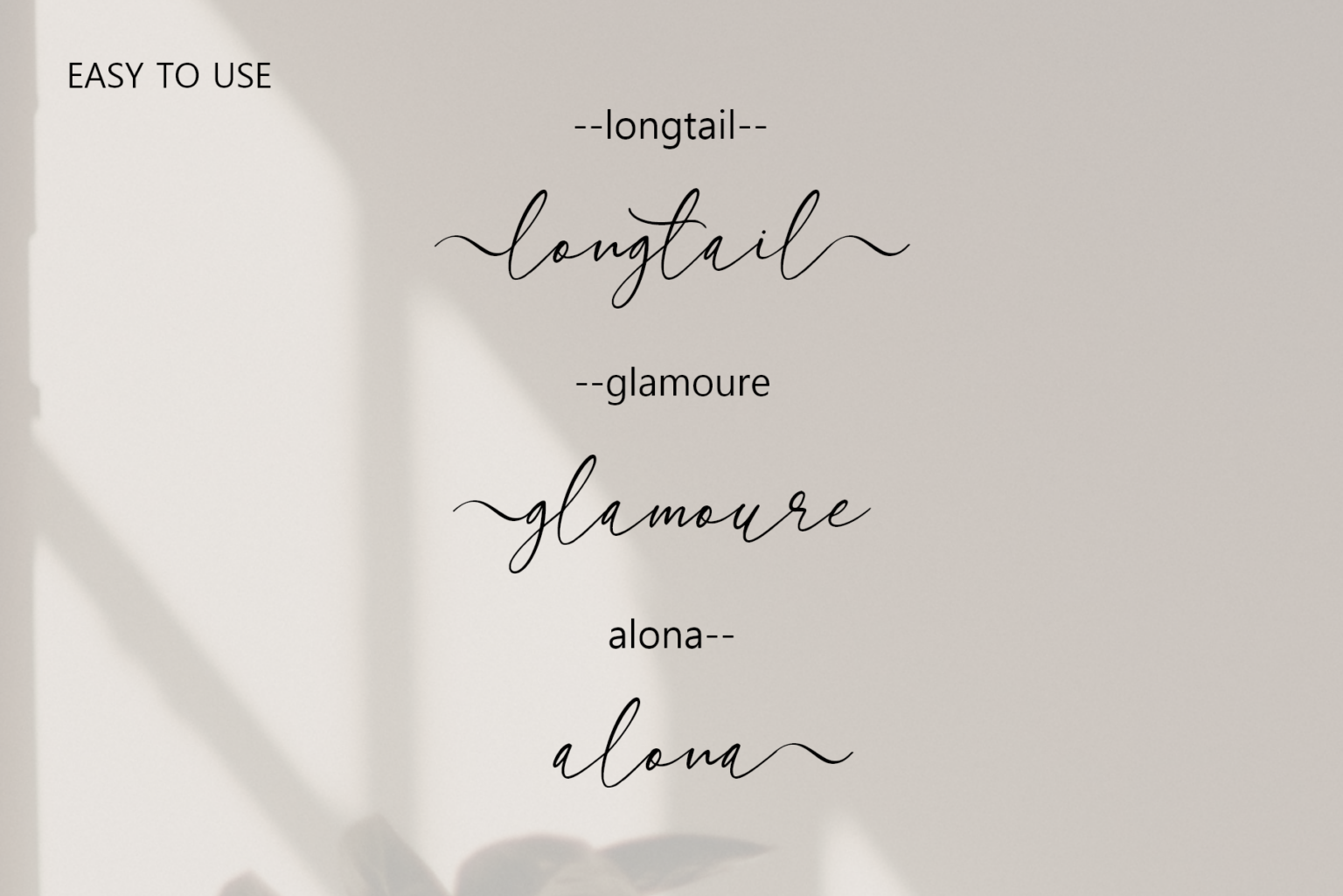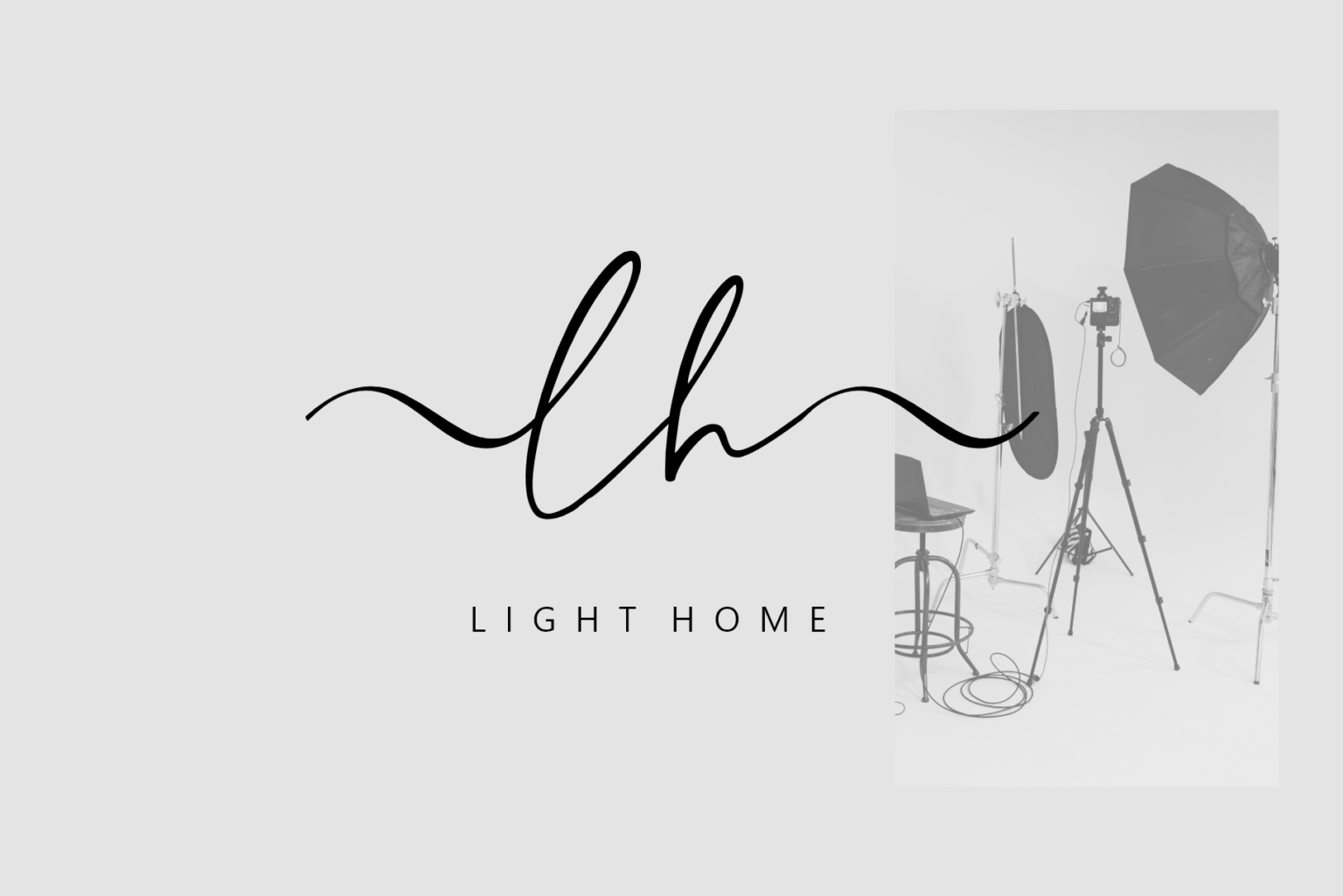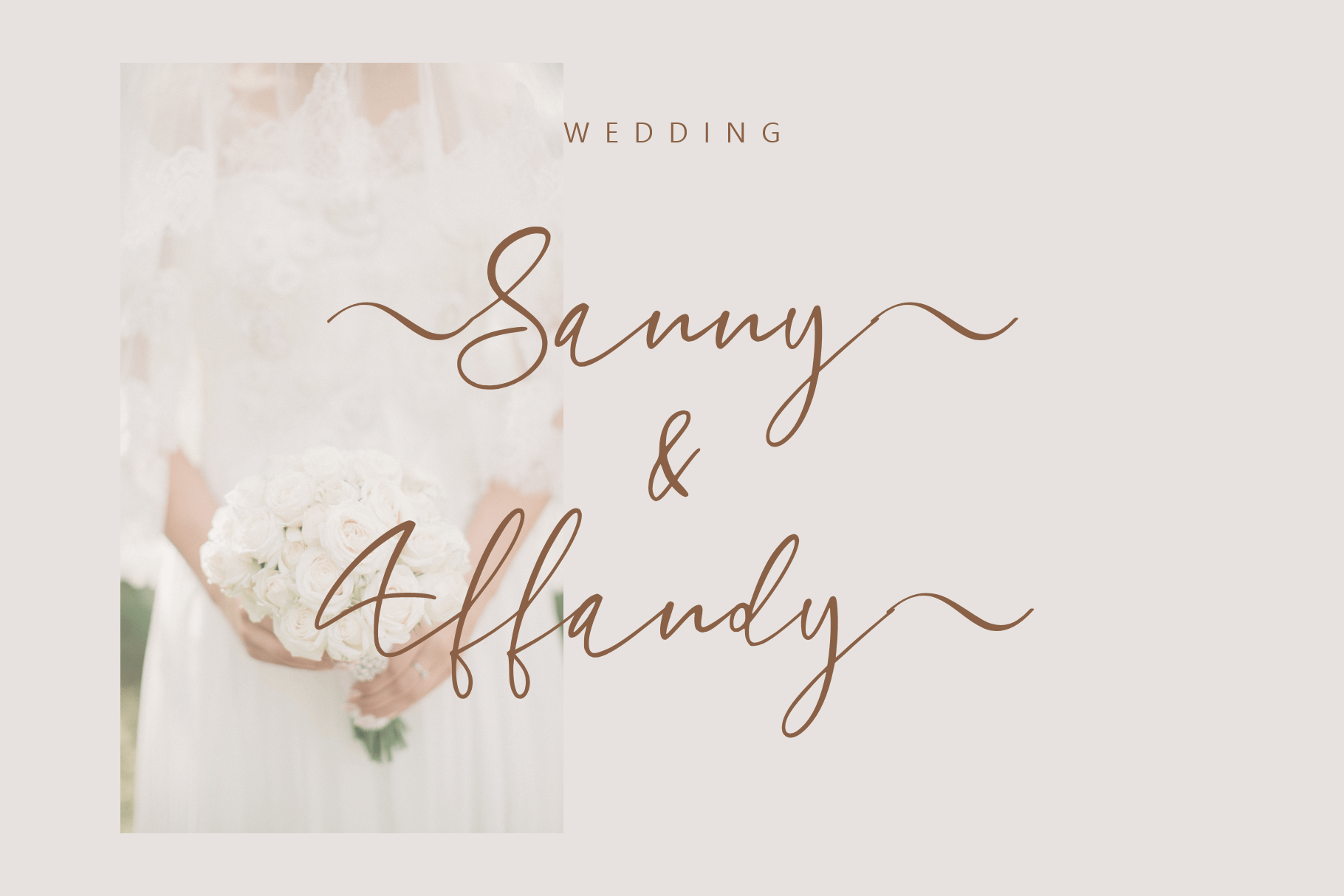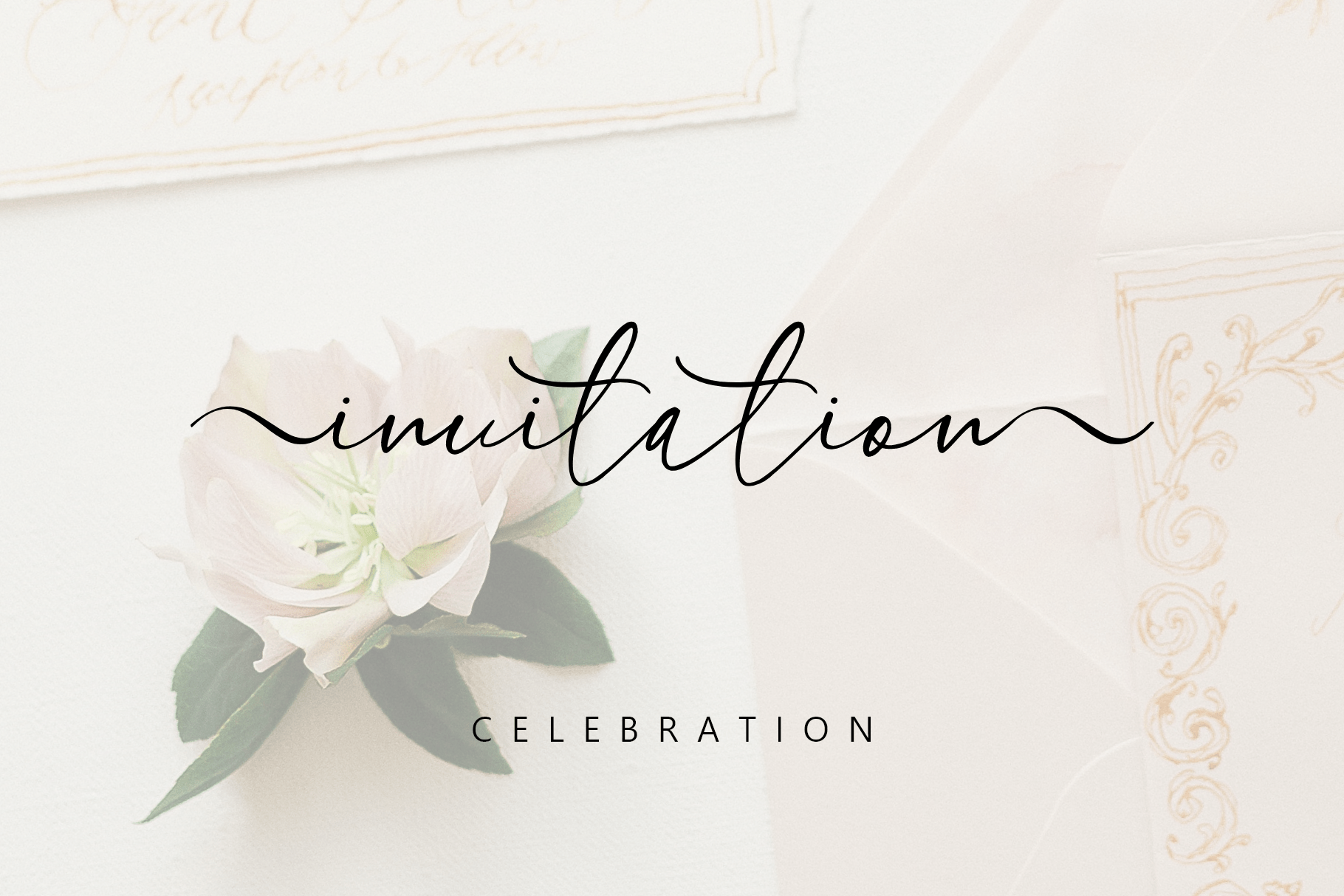
longtail Font
longtail Calligraphy Font
This is a new fashionable and super fancy handwritten script font with some extra sexy style. Longtail font is made to look as close to natural handwritten script as possible with ligatures, and a full set of lowercase alternatives.